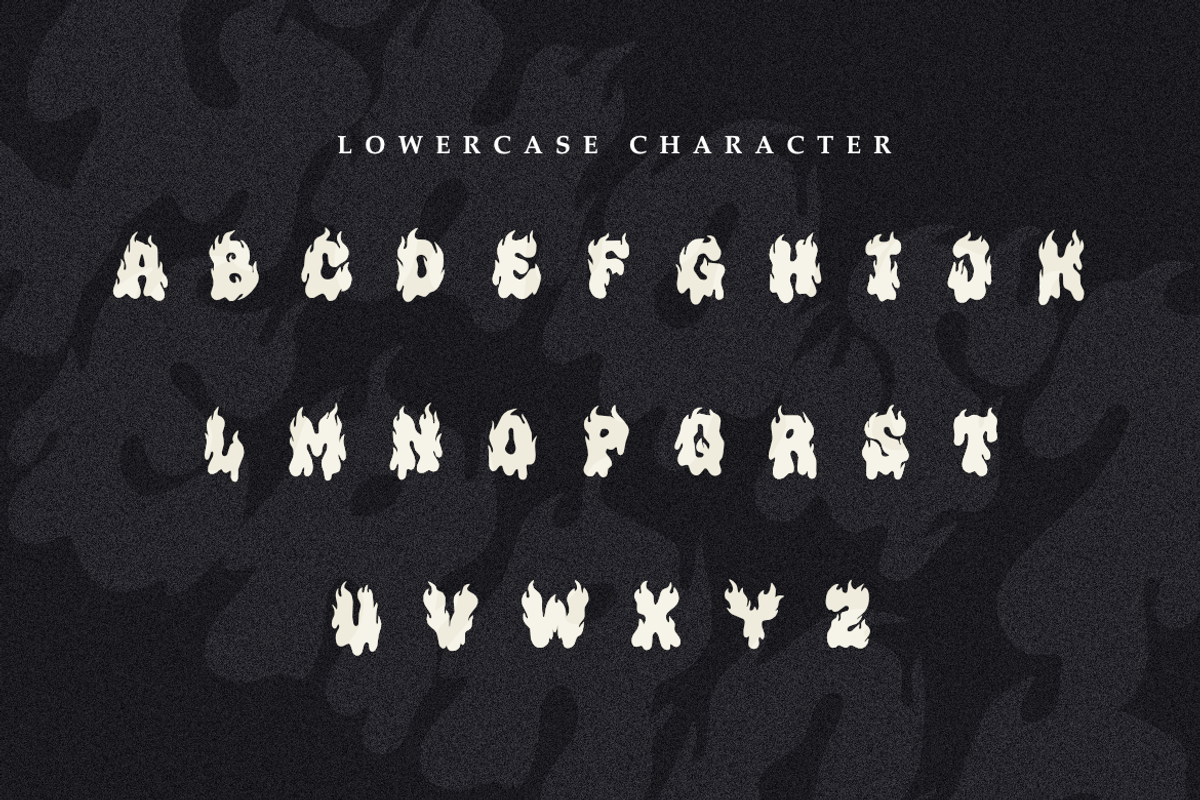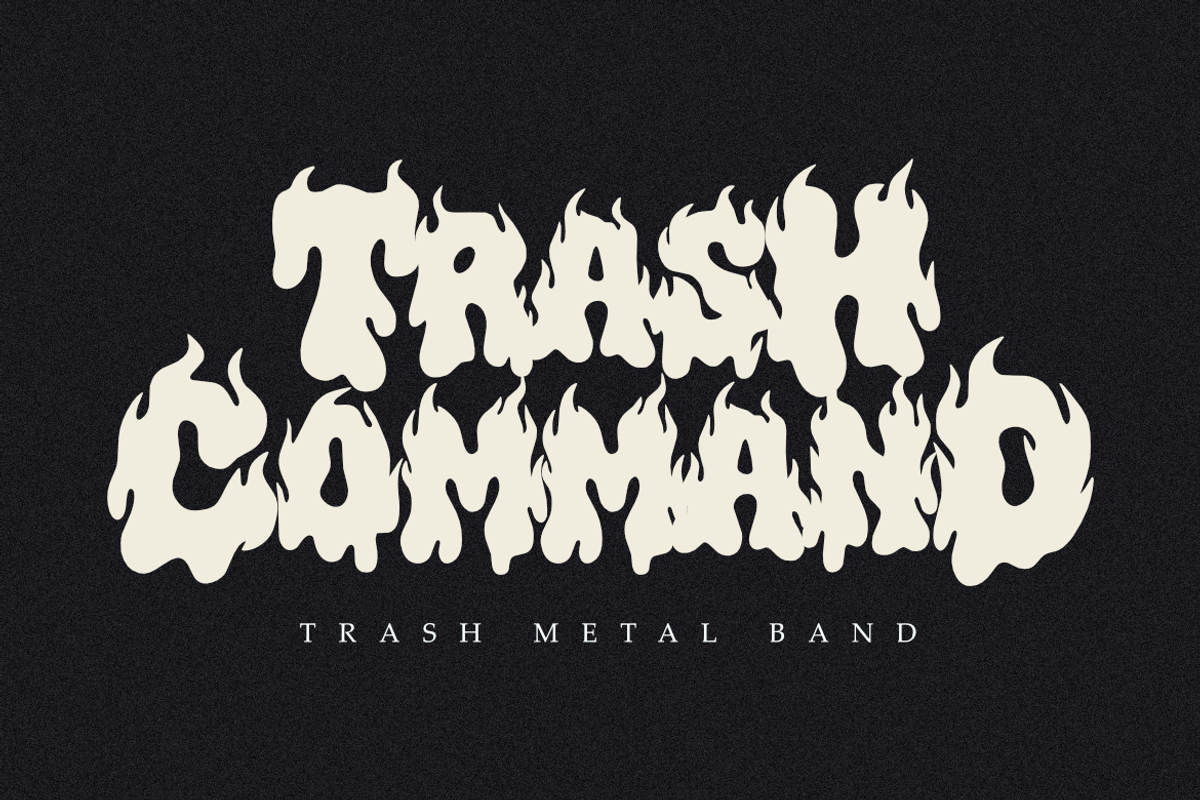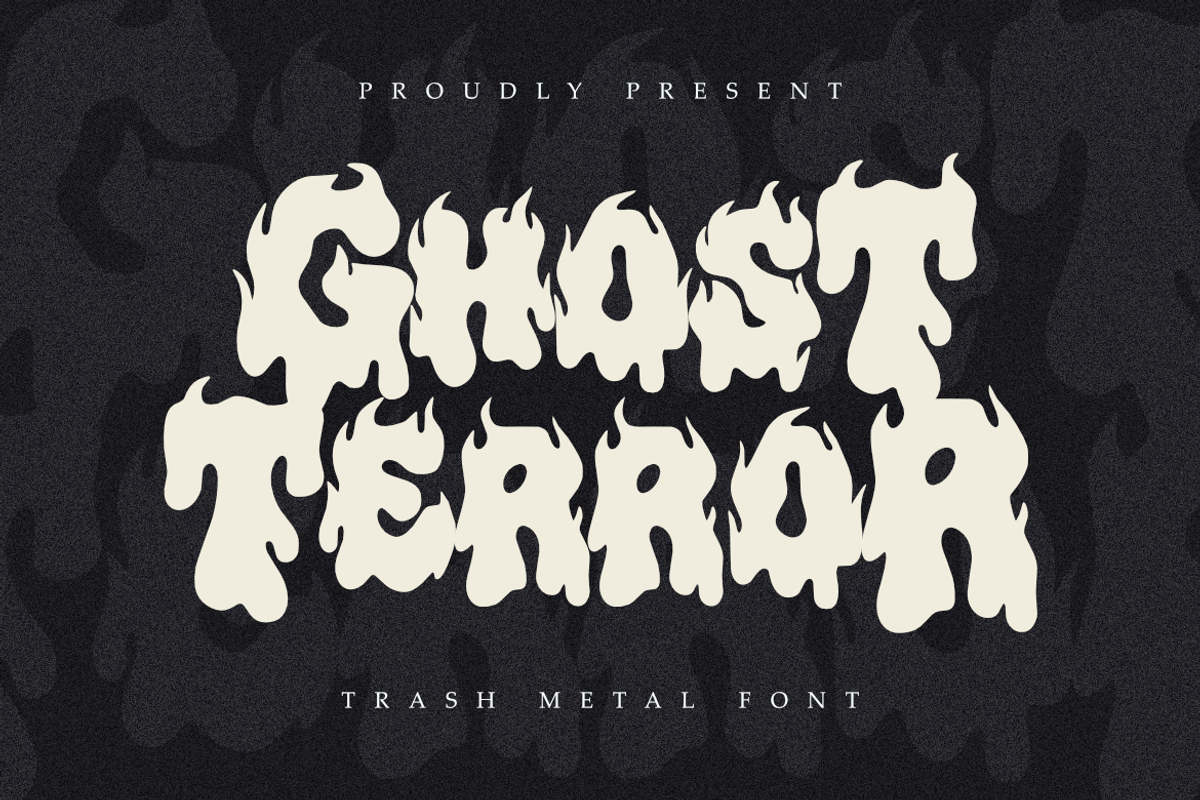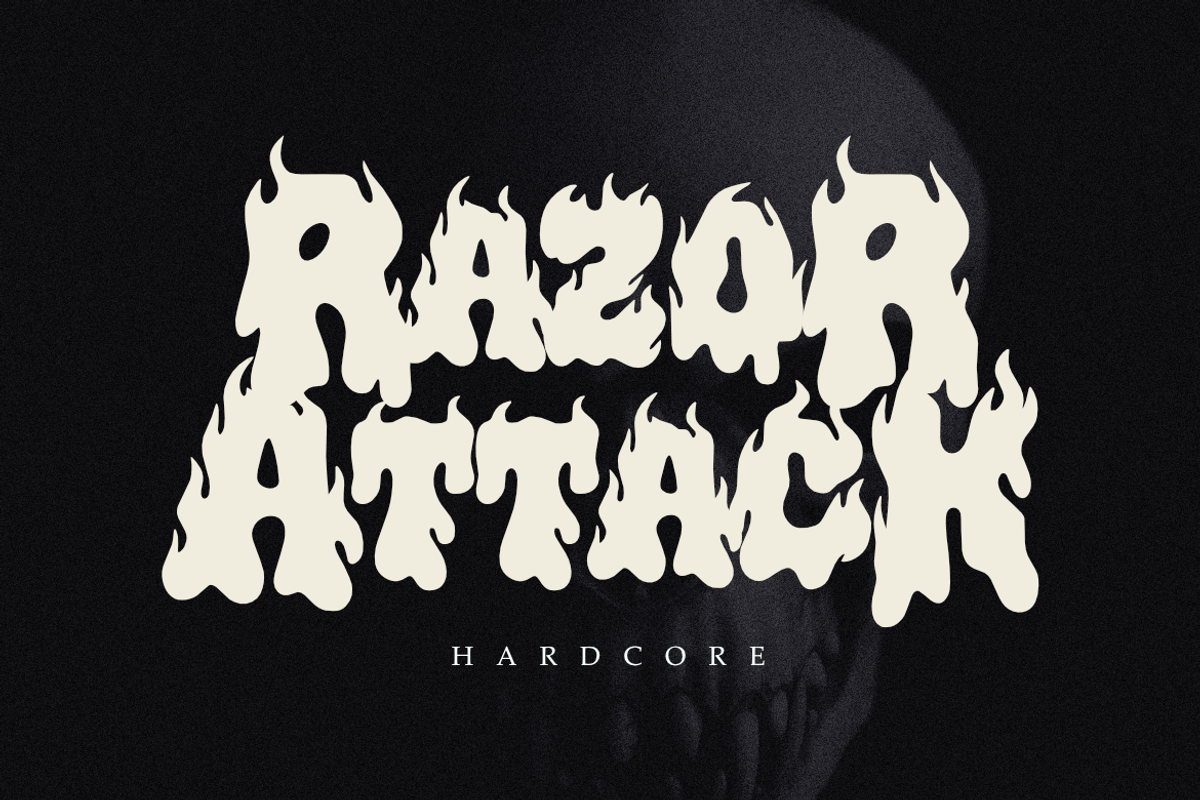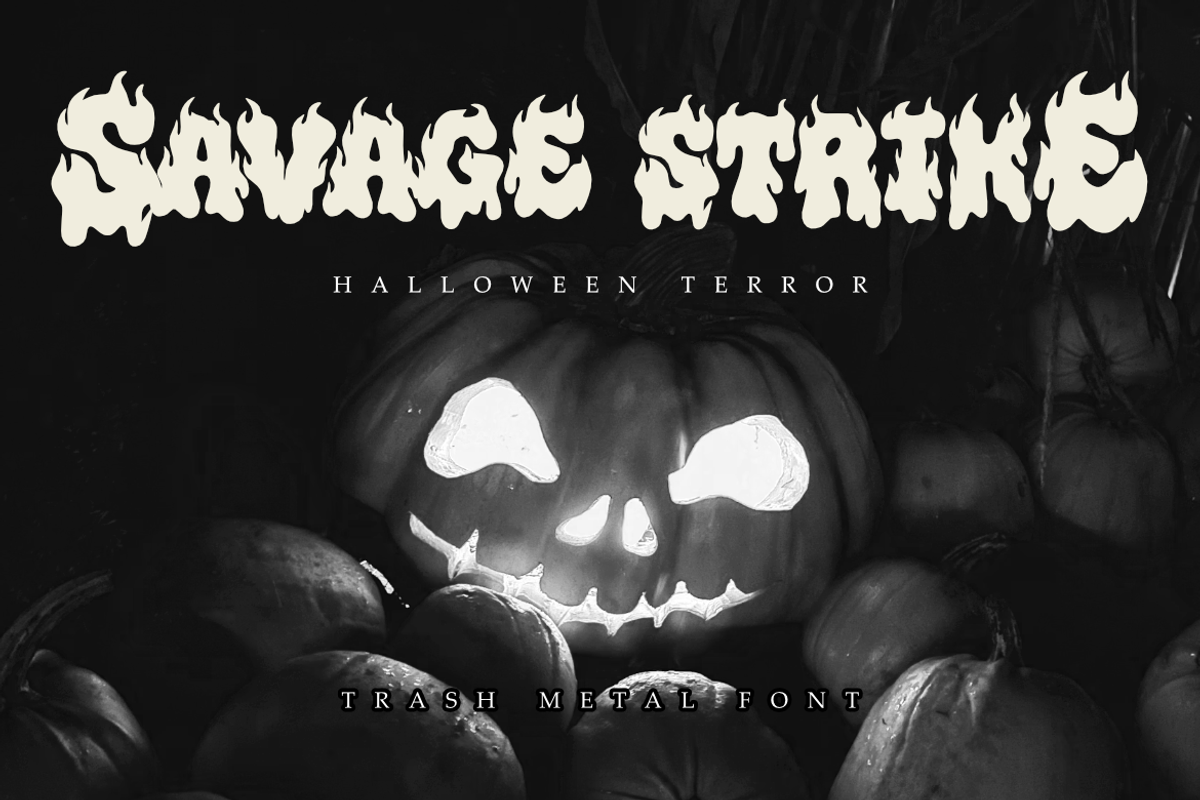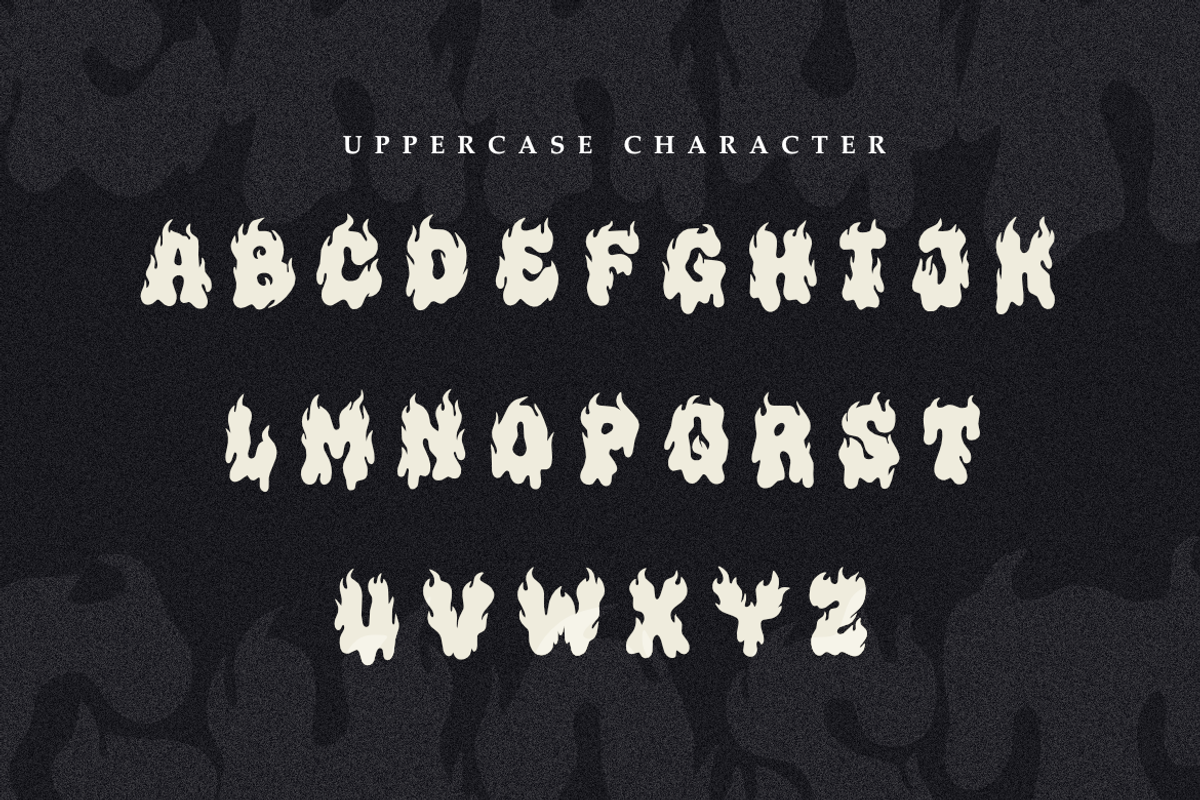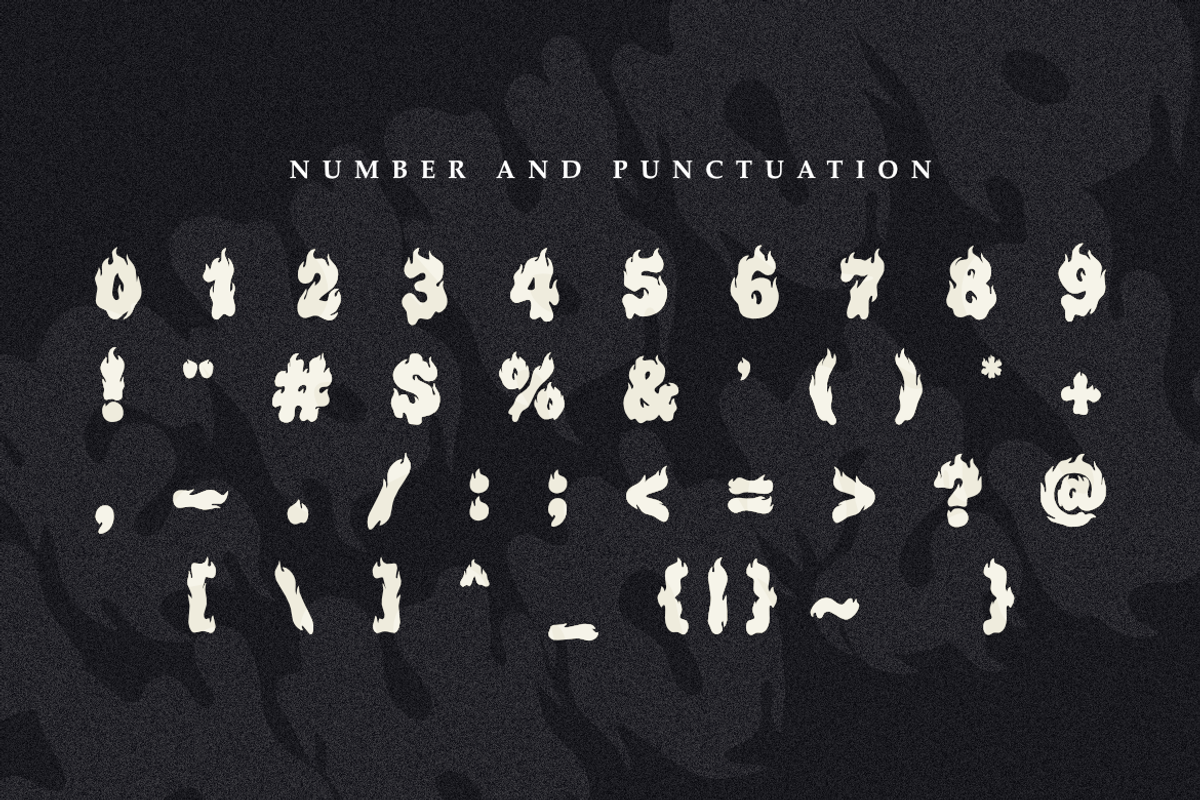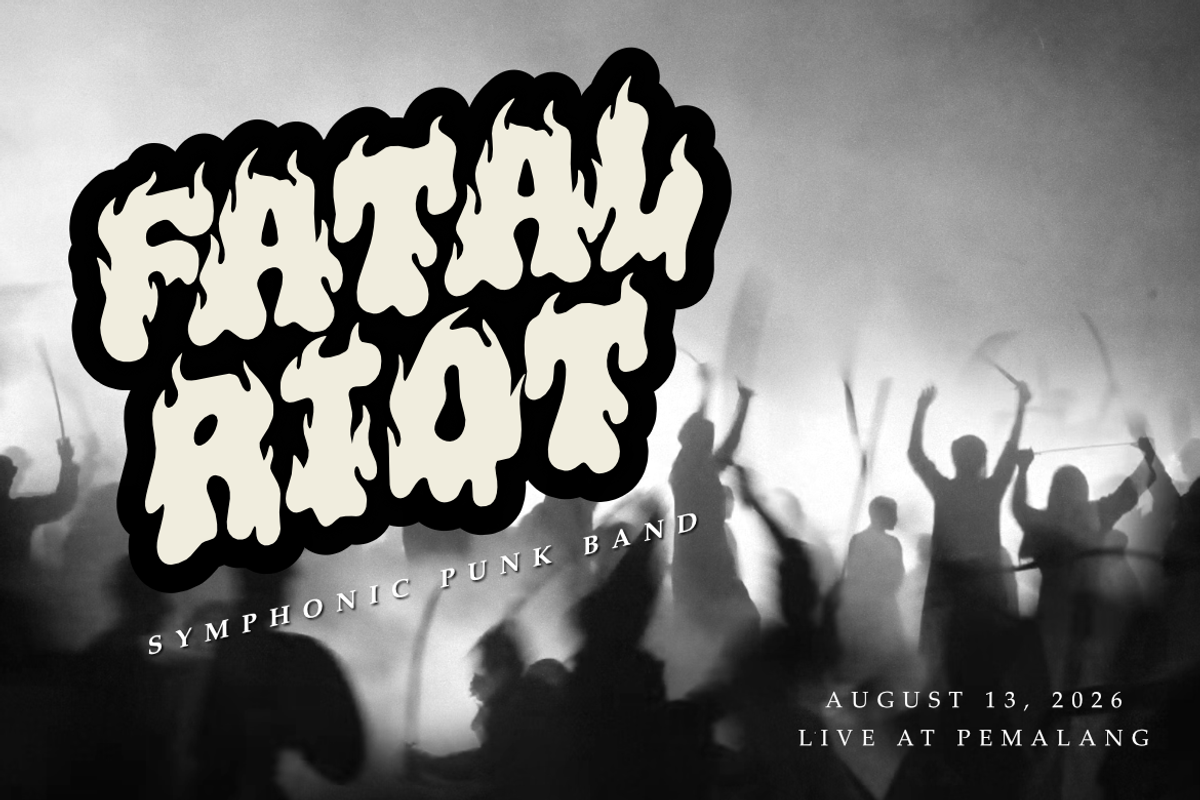
Ghost Terror - Trash Metal Font
Ghost Terror is a bold and aggressive trash metal font with a melting, flame-like character that brings a strong dark atmosphere to your design. Designed to stand out, this font is perfect for creating intense and eye-catching visuals.
This font delivers a powerful typographic style suitable for a variety of design needs, including logos, band identity, posters, album covers, social media graphics, and horror-themed projects.
Perfect for designers who want to create bold, dark, and striking visuals with a strong personality.